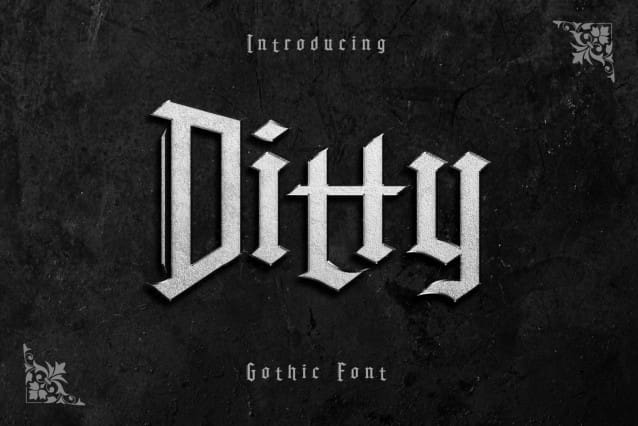
Ditty Blackletter Font
Ditty Blackletter Font is a stunning, gothic styled blackletter font. it works well on label, branding or pretty much anything that requires a distinct vibe. This font is PUA encoded which means you can access all of the glyphs and swashes with ease!